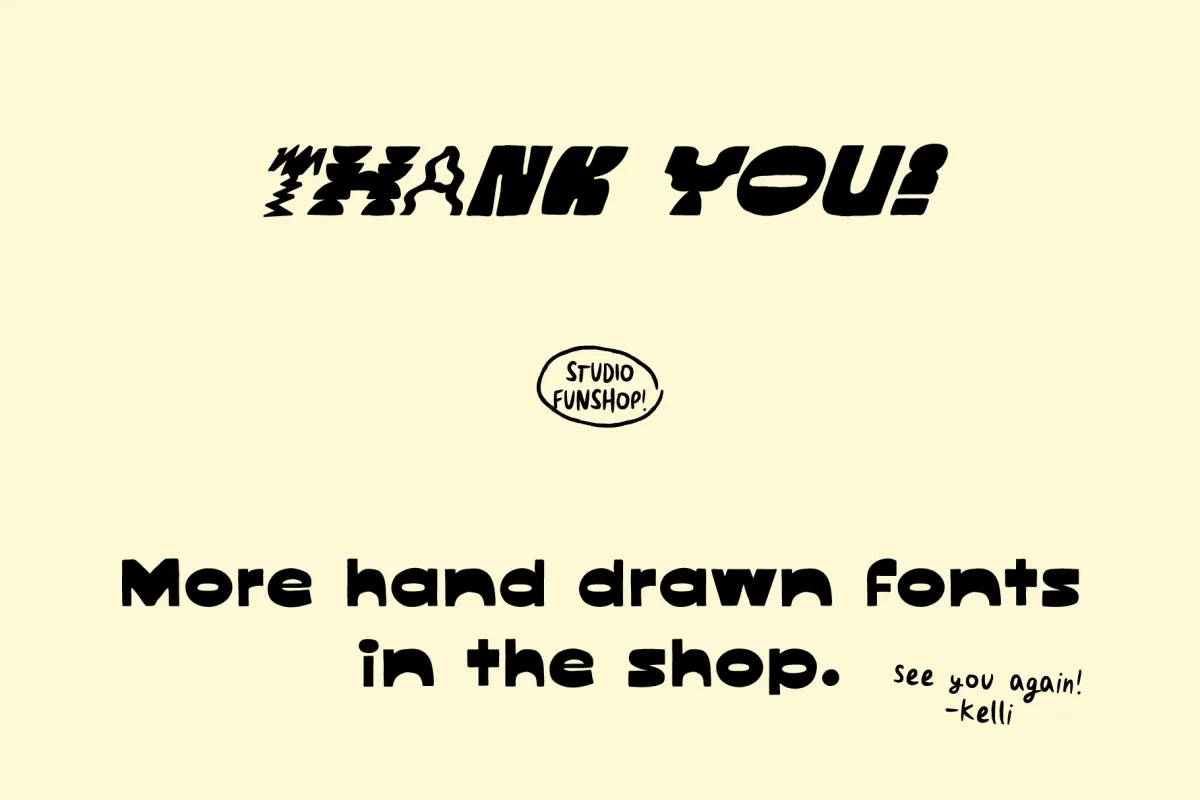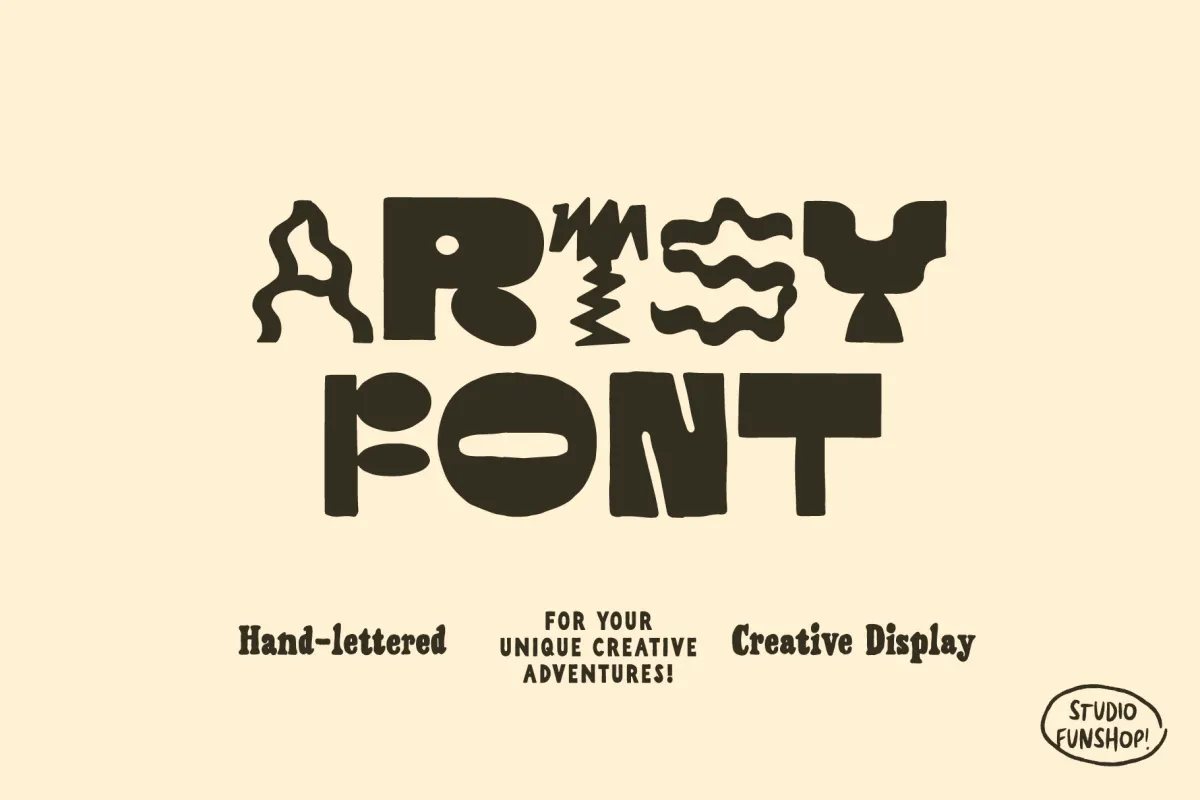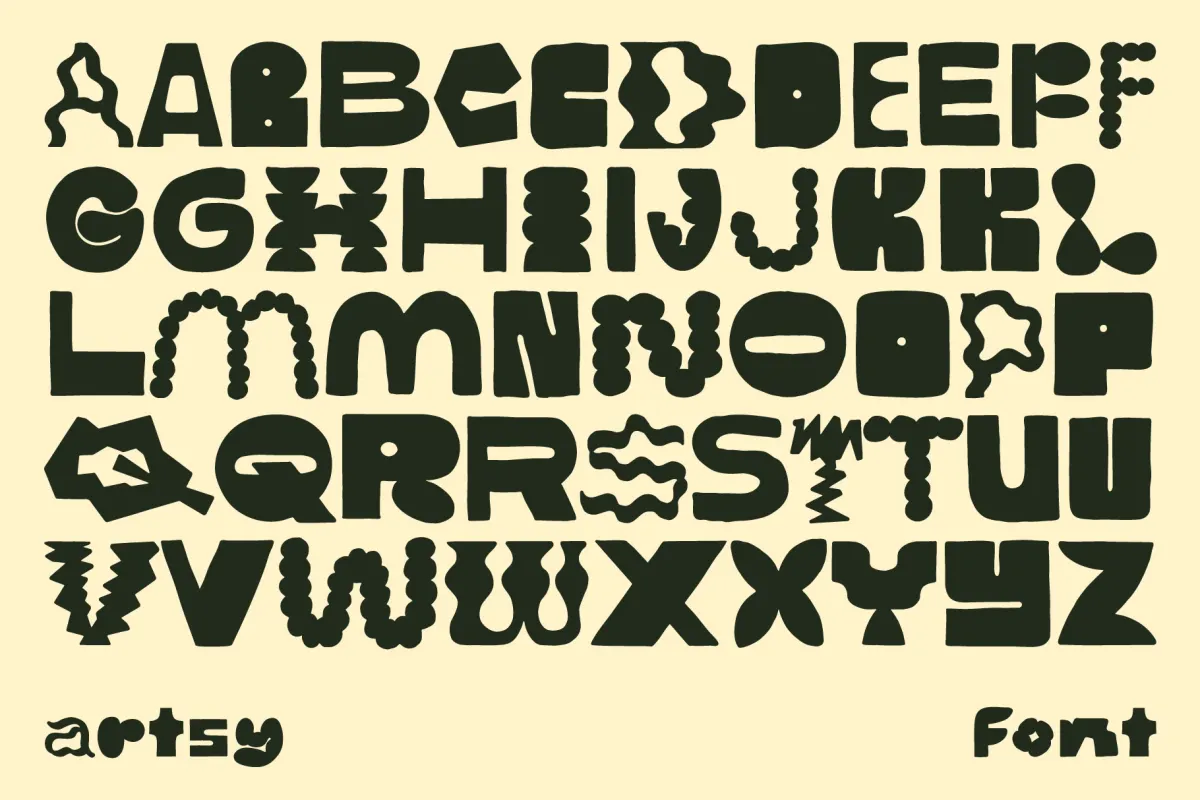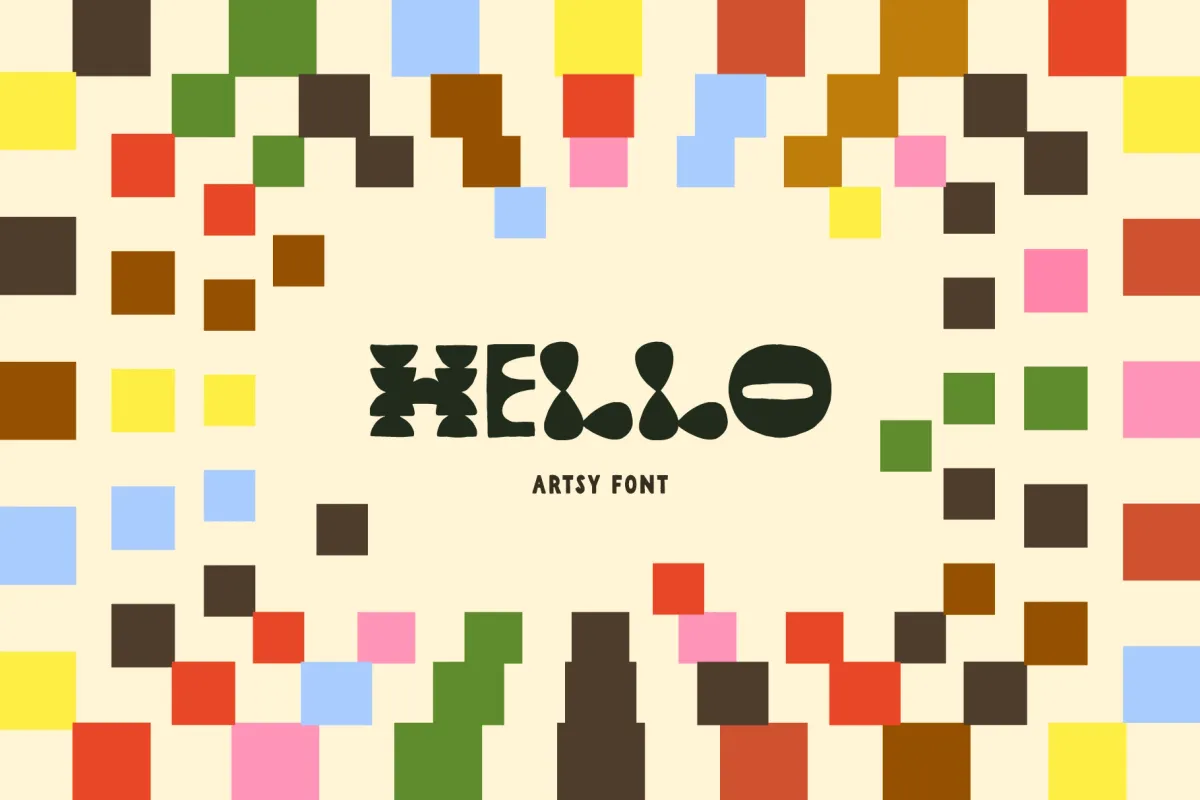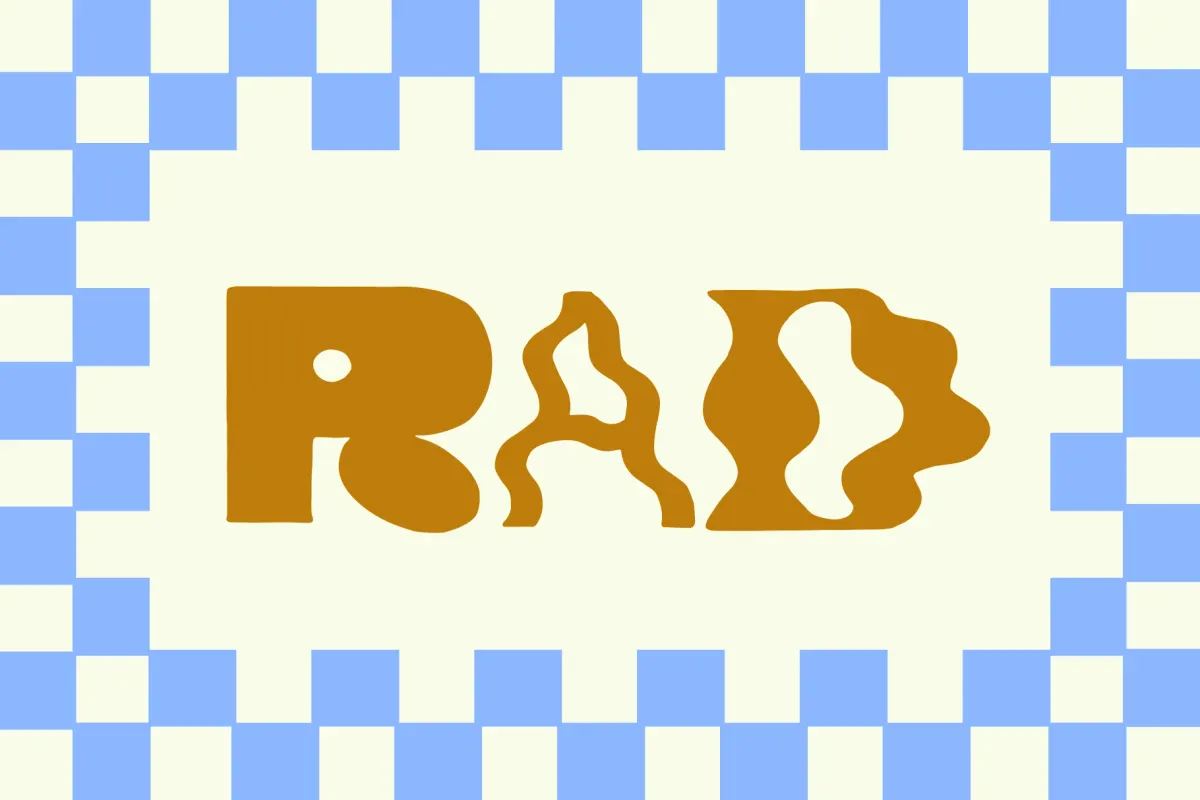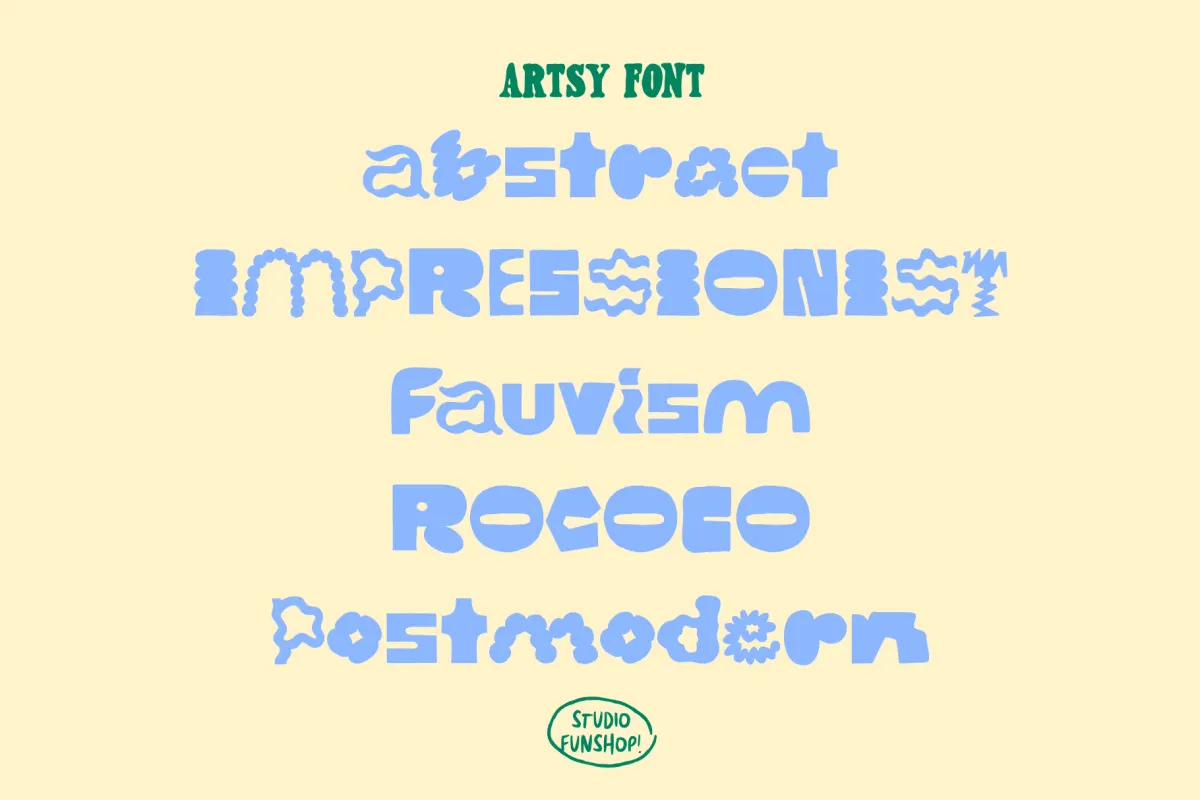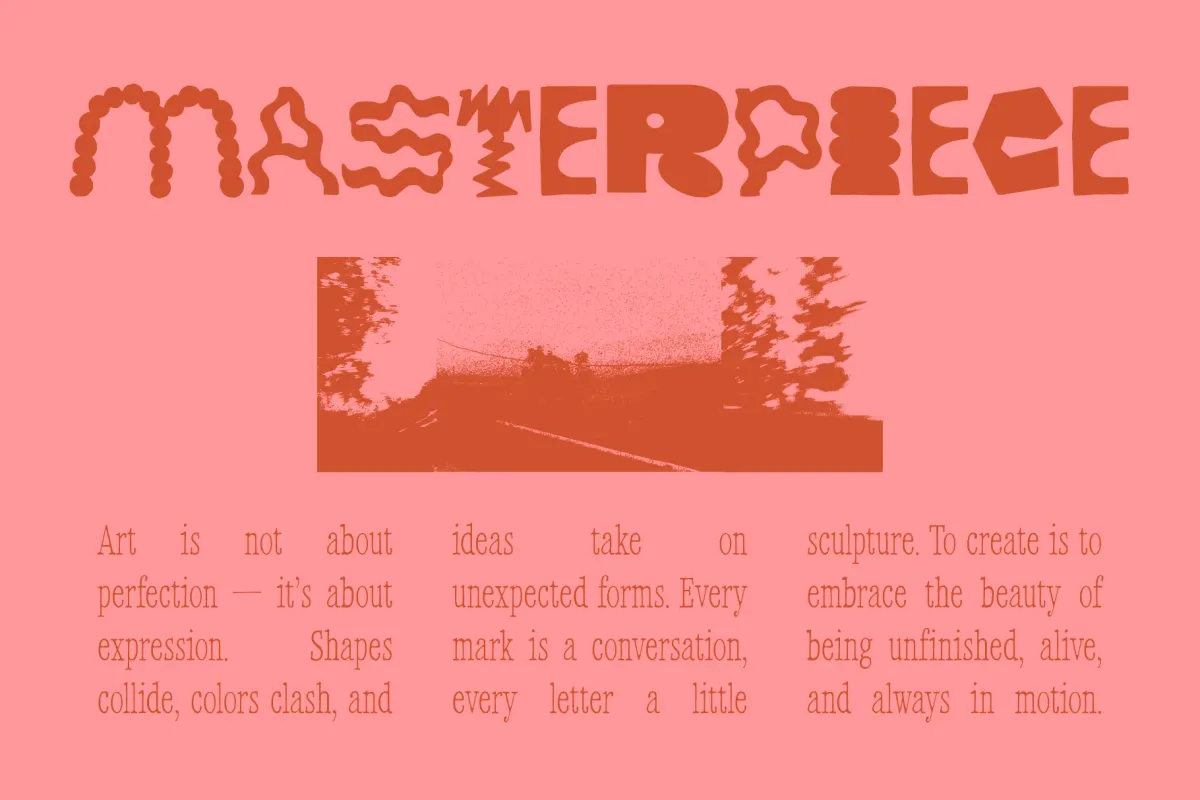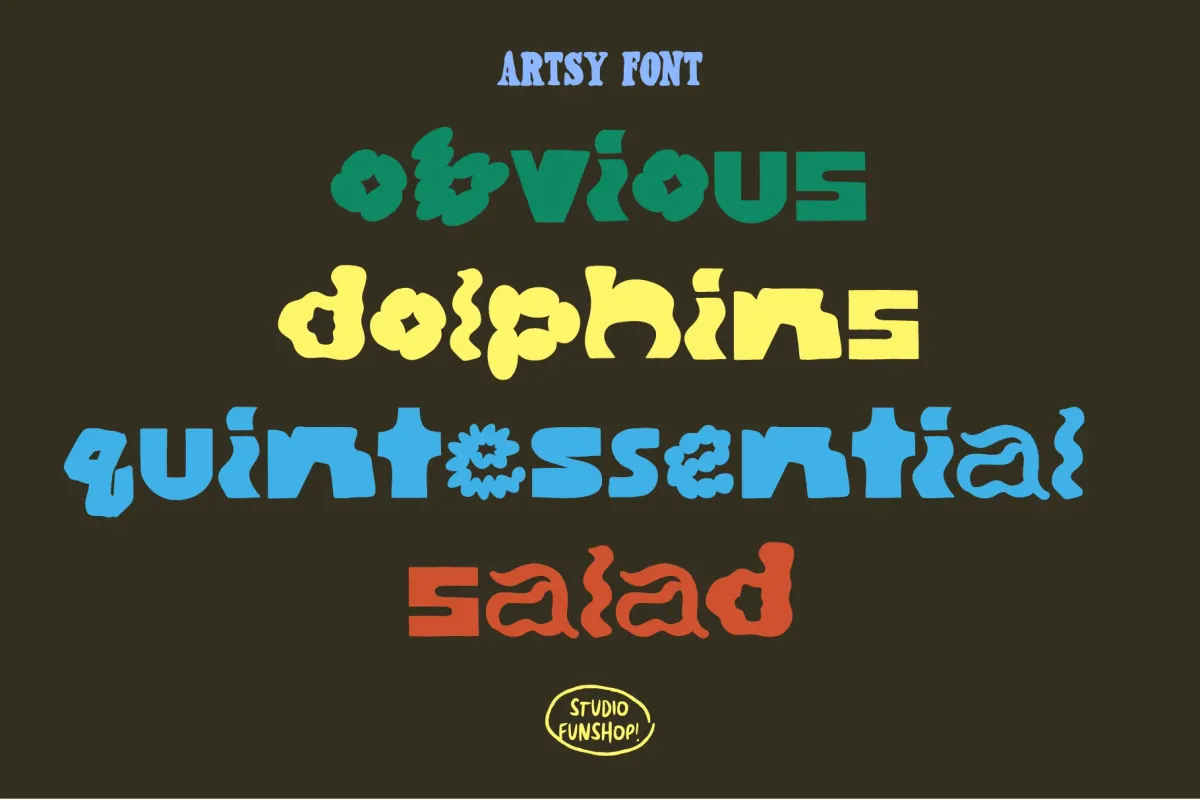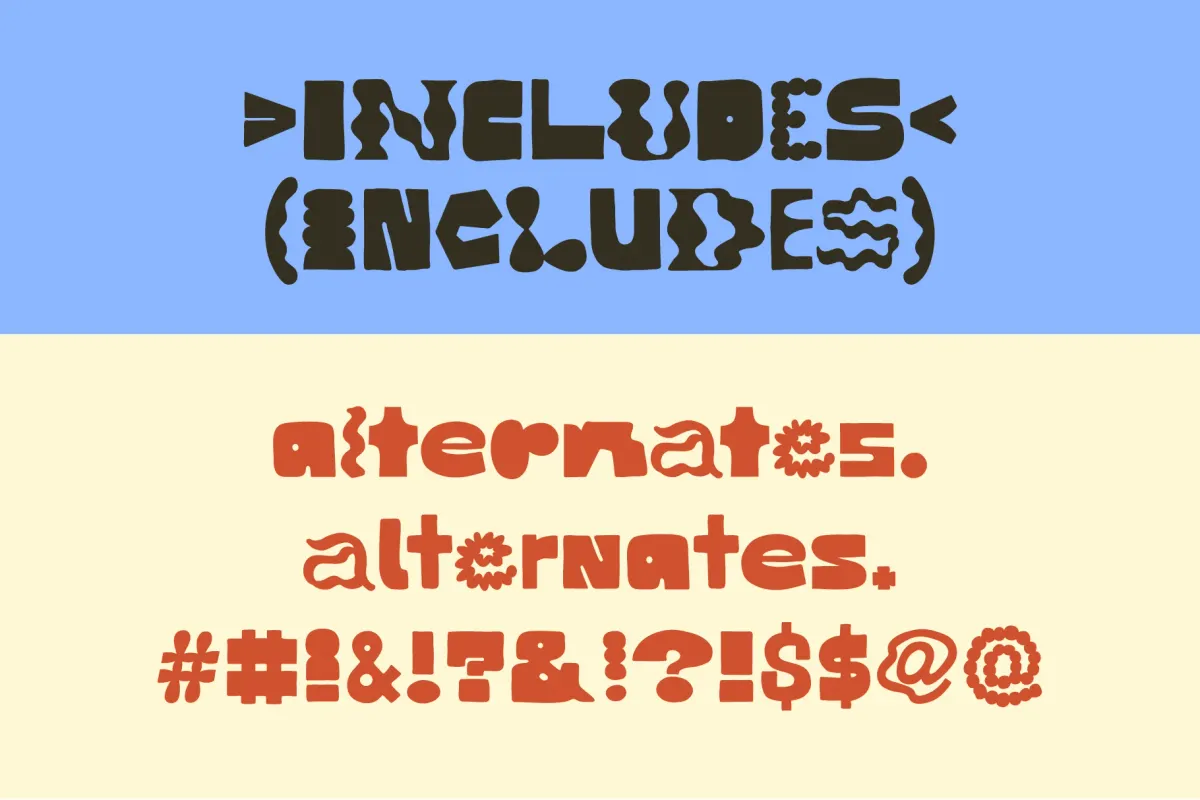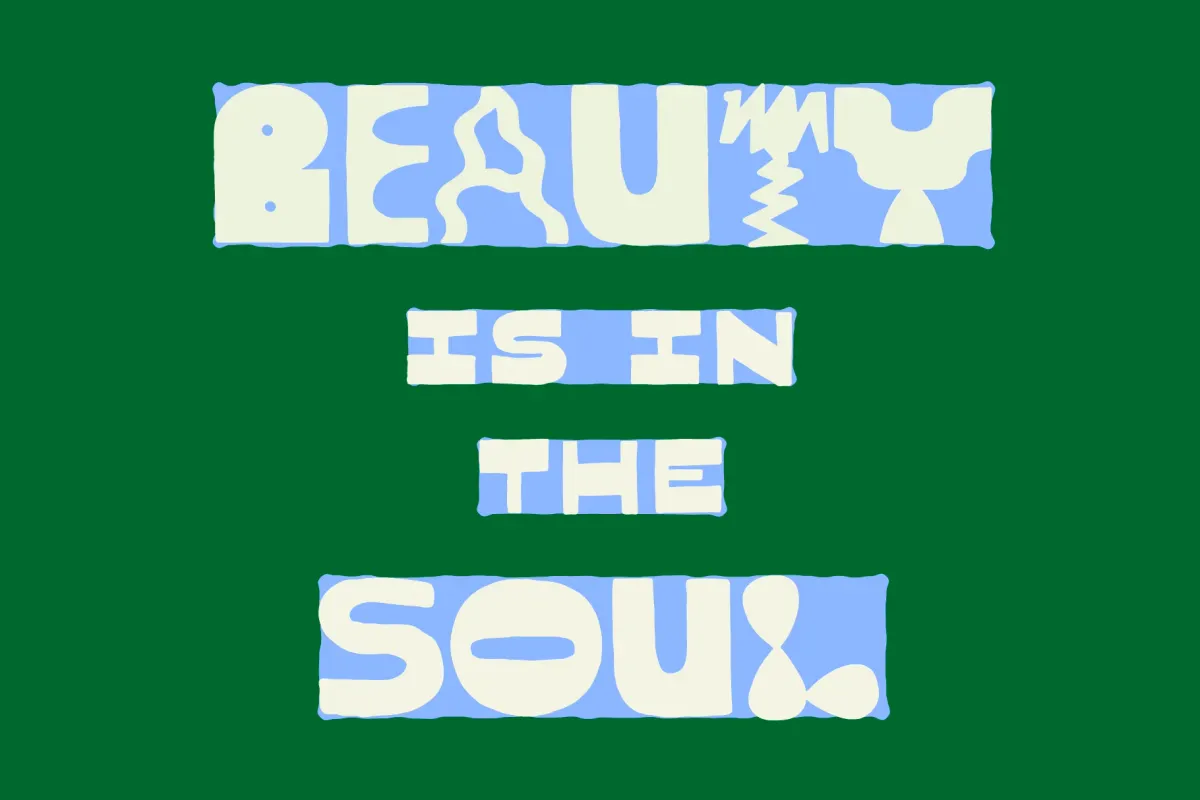
Artsy - Bold Hand-Lettered Display
Artsy mixes geometric cuts, organic curves, wiggly lines, and soft, irregular shapes into a bold handcrafted style. The font is graphic, experimental, and full of personality. With its quirky squiggles, shifting forms, and imperfect texture, it brings a handmade, one-of-a-kind statement to posters, branding, packaging, and social graphics.
• Poster design — art events, markets, music nights, pop-ups, workshops.
• Packaging design — snack packs, candle boxes, soap wraps, gift packaging, stationery sets.
• Social graphics — launch posts, promo banners, quote cards, campaign visuals, story templates.
• Merchandise — t-shirts, tote bags, mugs, stickers, notebooks, art prints.
• Event materials — invitations, flyers, signage, tickets, menu boards, display cards.